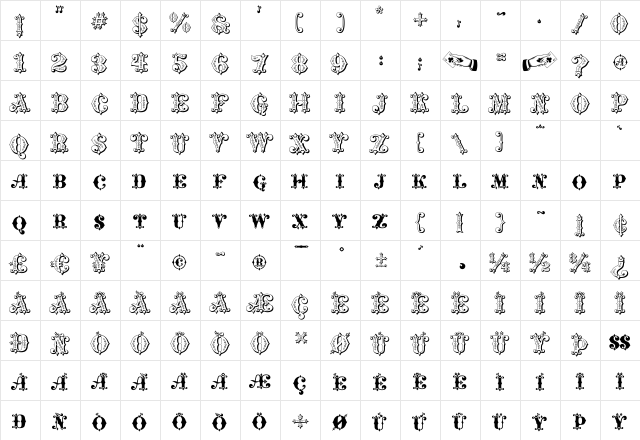
Maverick's Lucky Clubs Regular
Design Context for Maverick's Lucky Clubs Typeface
Maverick's Lucky Clubs is a composed and adaptable typeface that performs quietly and consistently across a wide range of design contexts.